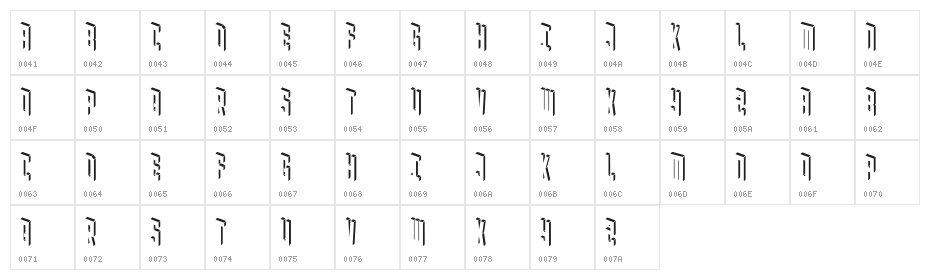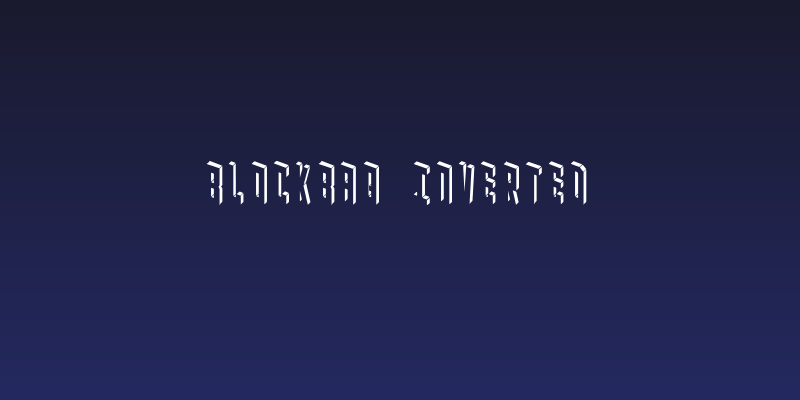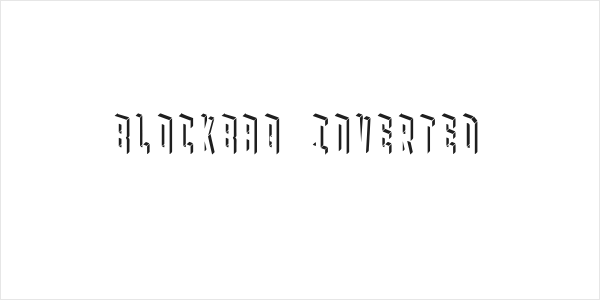
Blockbaq Inverted Font
Blockbaq Inverted Description
This font features a bold, three-dimensional design with a distinct blocky appearance. Each character is crafted with sharp angles and a shadow effect that gives it an inverted, embossed look. The uppercase and lowercase letters maintain a consistent style, with the uppercase being more pronounced. The numerals and special characters follow the same geometric and shadowed design, ensuring uniformity across all glyphs. This font is particularly striking due to its high contrast between the thick, solid strokes and the negative space, creating a visually impactful presence.
| Proposed Projects | Ideal for projects requiring a strong visual impact, such as posters, logos, and headlines. Its unique style makes it suitable for branding in industries like gaming, technology, or entertainment. |